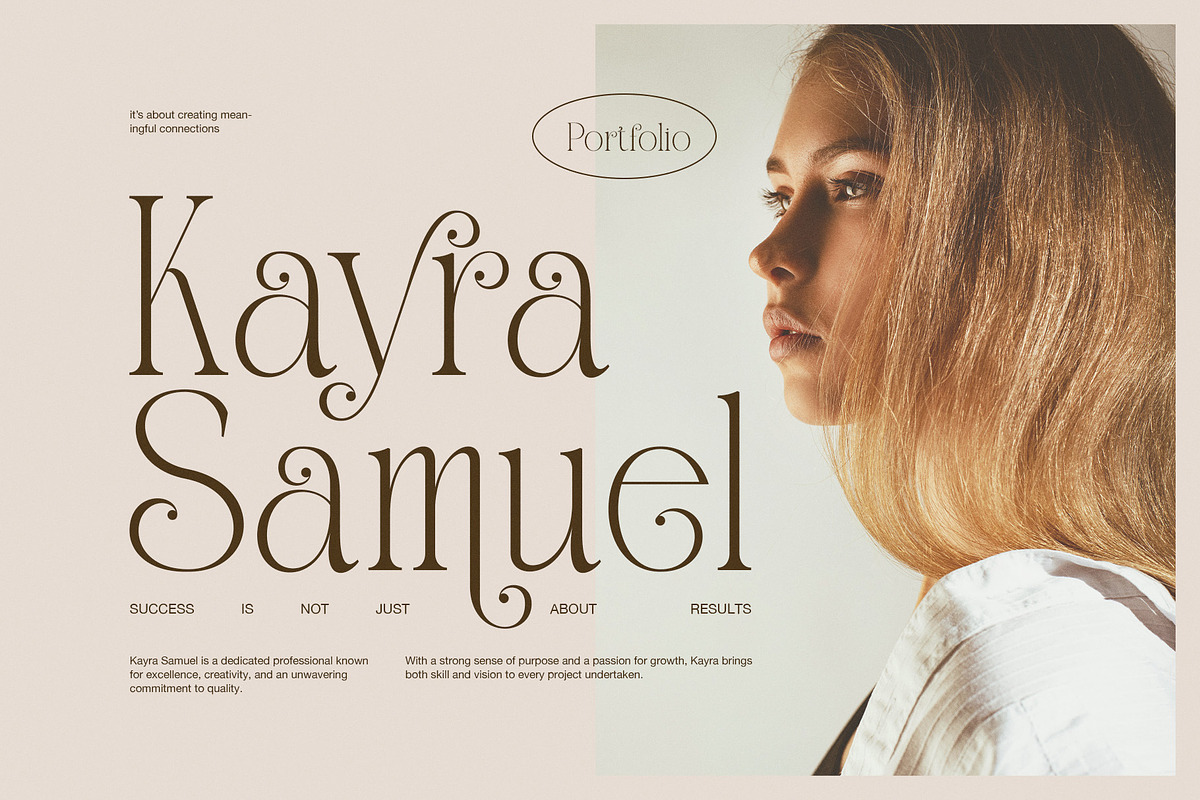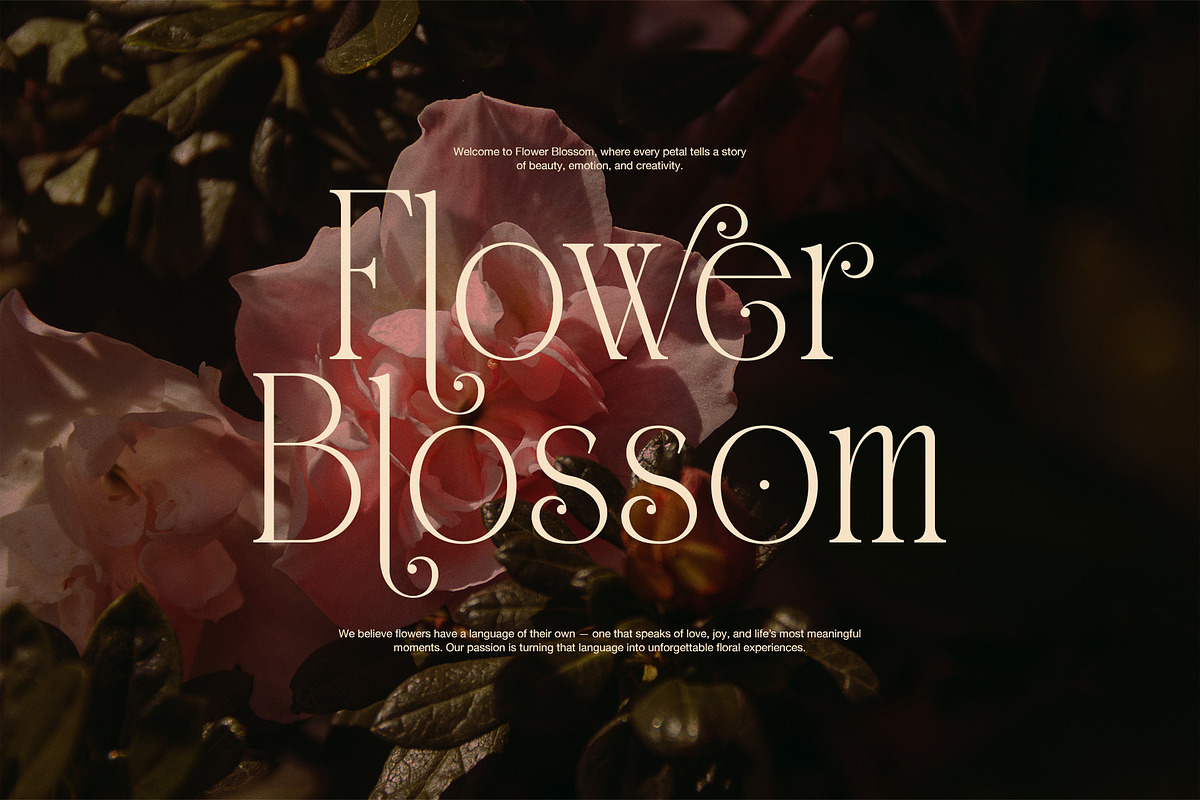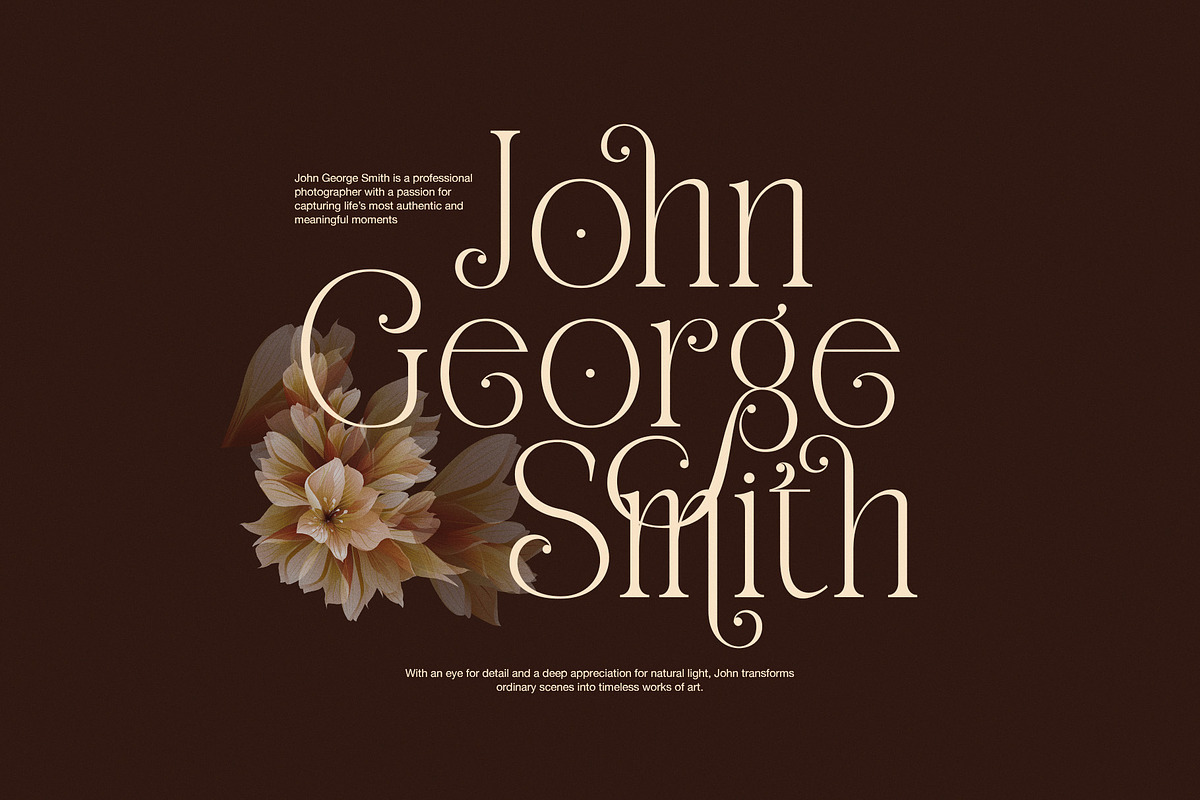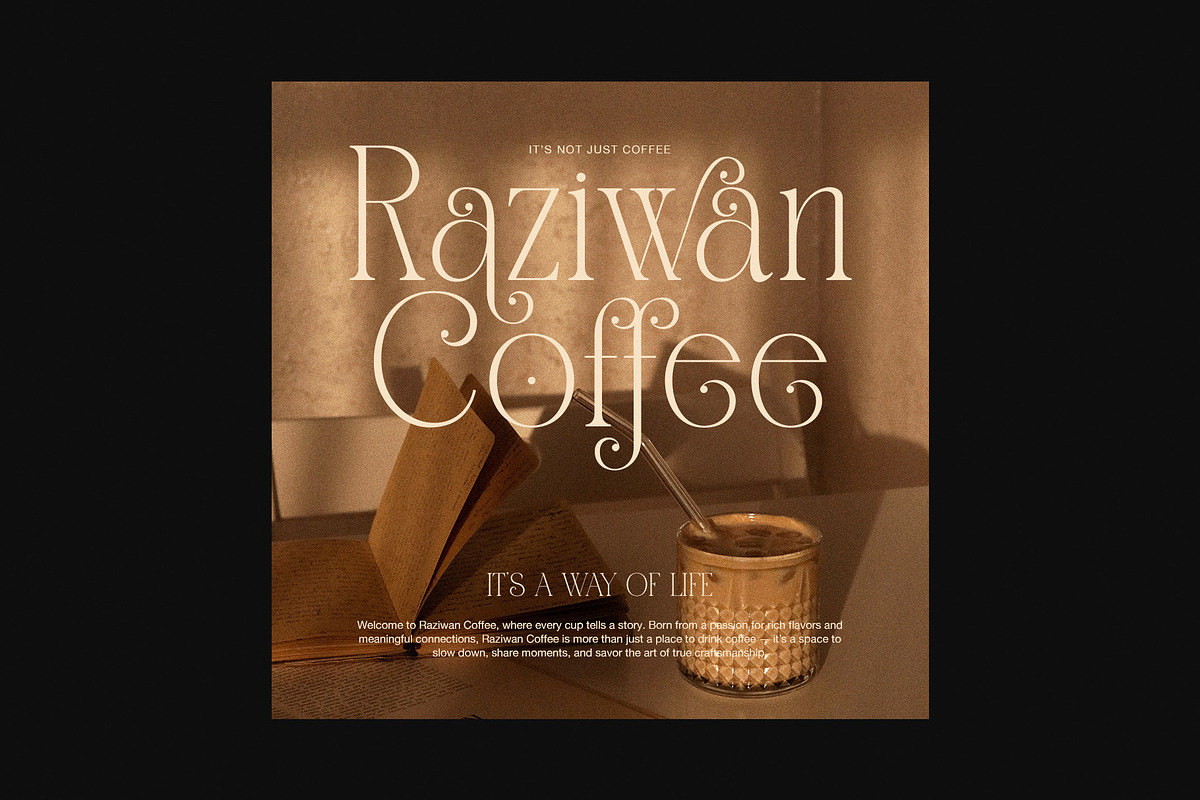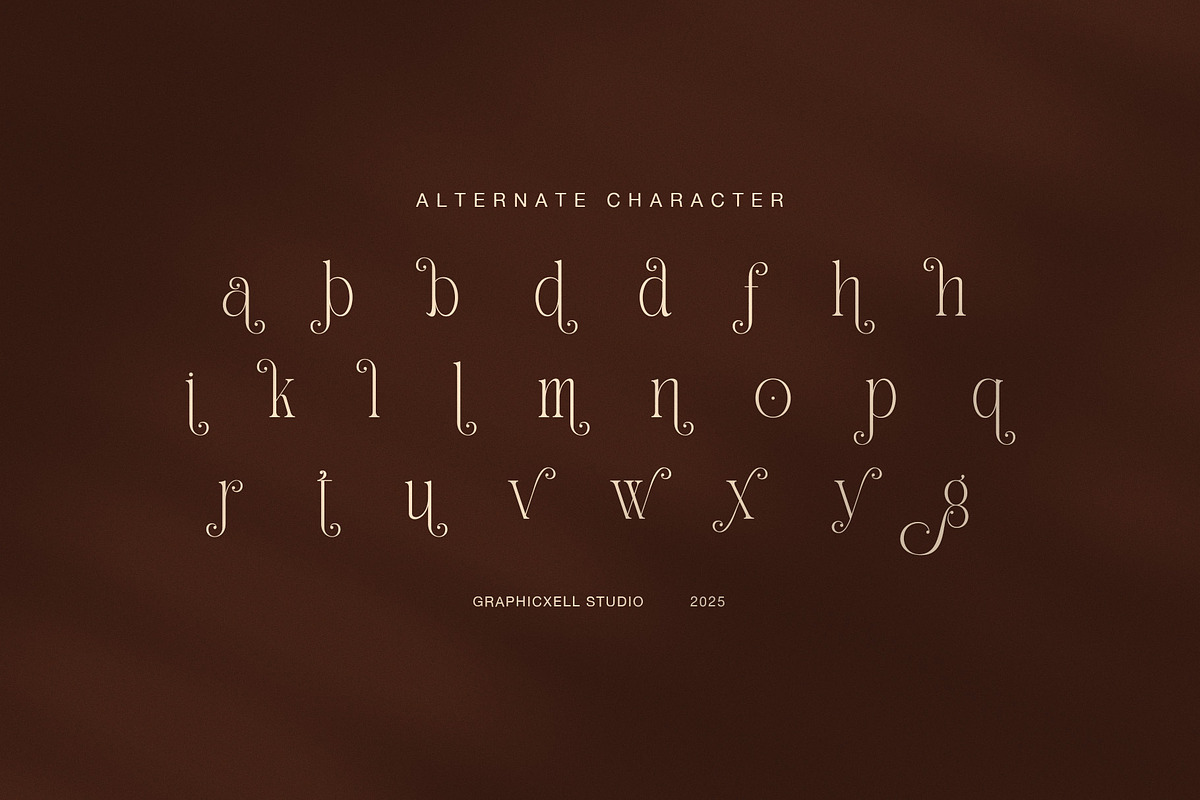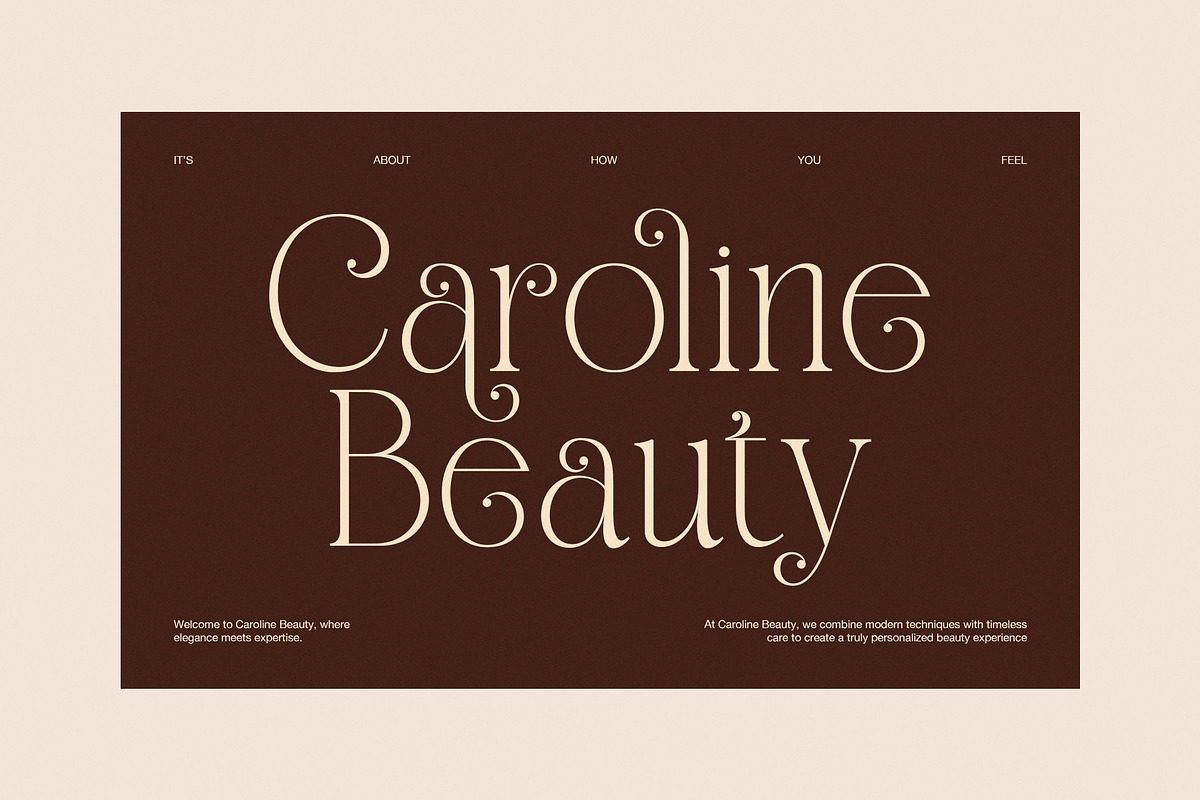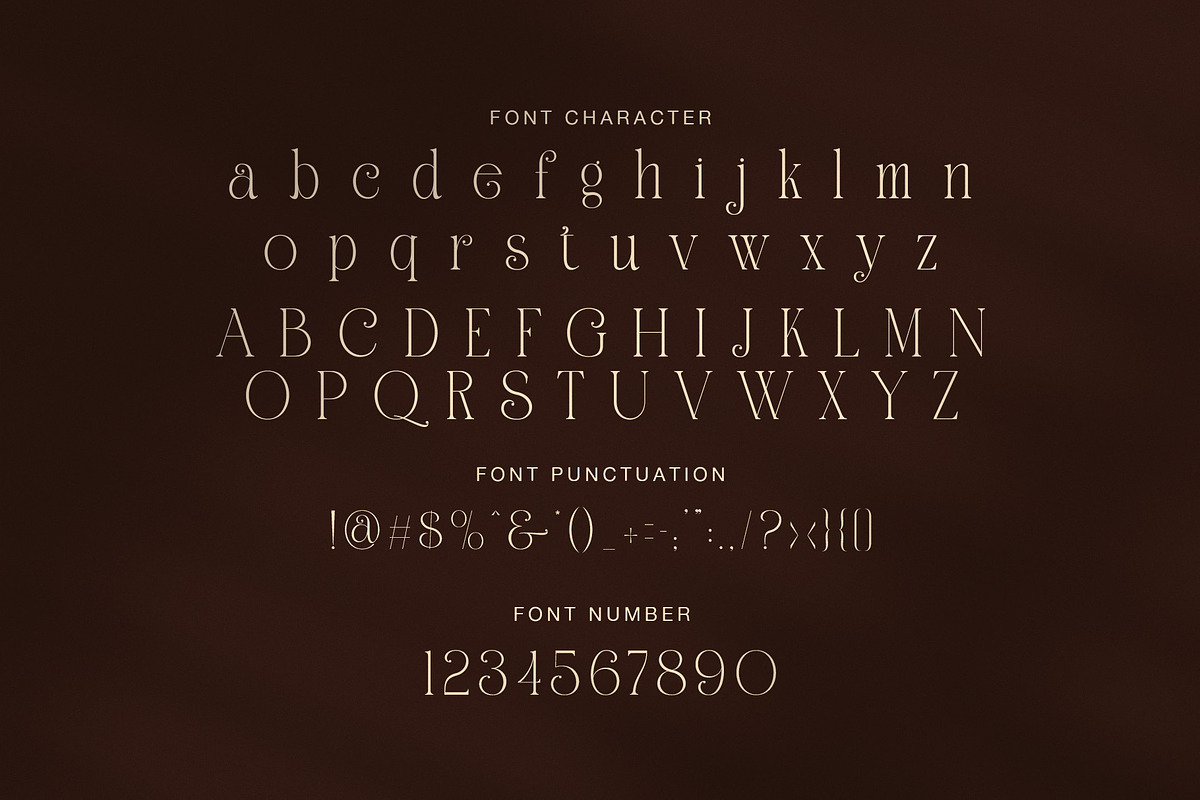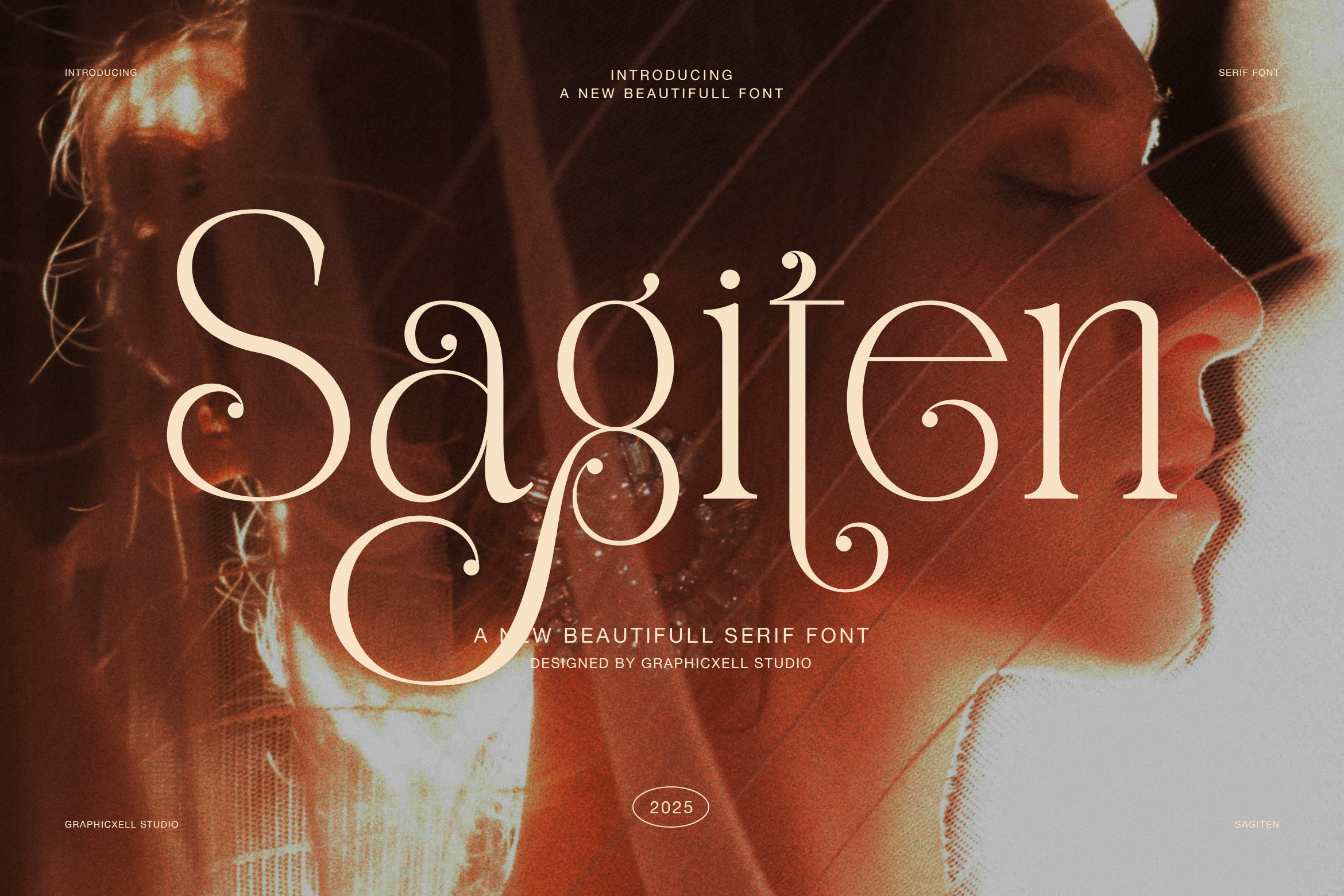
Sagiten Elegant Display Serif Font
Sagiten is an elegant display serif font created to express beauty, emotion, and refined sophistication. It combines graceful curves with classic serif structure, which gives the typeface a timeless yet expressive personality. Because of this balance, Sagiten feels luxurious while remaining warm and inviting.
First of all, Sagiten features flowing letterforms with soft contrast and decorative terminals. These details create a smooth visual rhythm, which helps text feel calm and refined. Moreover, the sculpted strokes add character without sacrificing clarity. As a result, Sagiten delivers strong impact in headlines while staying easy to read.
In addition, Sagiten includes alternate characters that allow designers to build unique typographic compositions. These alternates introduce subtle movement and elegance, especially in branding and editorial layouts. Therefore, each design can feel personal, artistic, and thoughtfully crafted.
Furthermore, Sagiten performs beautifully across many creative fields. It works perfectly for beauty branding, fashion campaigns, floral design, café identities, and lifestyle visuals. At the same time, it adapts well to digital platforms such as websites, social media graphics, and online advertisements. Because of its balanced proportions, Sagiten remains elegant at both large and medium sizes.
Another key strength of Sagiten is its emotional tone. The font communicates softness, romance, and confidence. Consequently, it supports storytelling and brand identity without overpowering the message. Designers can use Sagiten to create layouts that feel meaningful, premium, and visually harmonious.
Why choose Sagiten Elegant Serif Font?
Elegant display serif with expressive curves
Alternate characters for creative typography
Ideal for beauty, fashion, and lifestyle branding
Smooth contrast for comfortable readability
Works well in print and digital projects
Timeless style with emotional warmth
In conclusion, Sagiten is more than a serif font. It is a refined design tool that enhances branding, editorials, and visual storytelling. Whether you are designing for florists, photographers, cafés, or creative studios, Sagiten helps your work feel graceful, emotional, and memorable.